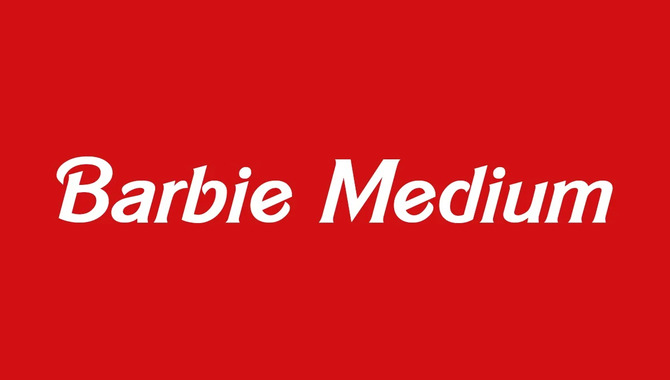
`Barbie has been a household name for over 60 years, and it’s no surprise that the brand’s signature font has evolved along with its image. The Barbie font has become an iconic symbol of the brand, representing glamour, fashion, and feminine style.
Today, the Barbie font features a sleek, modern design reflecting the doll’s legacy and continuing relevance in popular culture. This evolution of Barbie’s typography is a testament to how visual representation can adapt to changing times while retaining its core identity.
Here we will take you on a journey through the evolution of the Barbie font from its early days of bubble letters to the bold design it is today. We’ll explore the history of some of the most popular Barbie fonts, like Dollie Script and Brush Script, and how they have changed over time. Join us as we explore all things related to Barbie font – its history, popularity, use cases, and more.
The Early Days Of Barbie Font Design
As Barbie rose to prominence in the toy industry, her font became essential to her brand image. The original Barbie logo featured whimsical bubble letters that mirrored the doll’s playful nature. Over time, as the brand evolved, so did the font.
In the 1980s and 1990s, the font became bolder and more streamlined to reflect changing fashion and design trends. Today, the Barbie font is sleek and modern, reflecting the doll’s legacy and continuing relevance in popular culture.
The Original Barbie Font
The original Barbie font, created by graphic designer Mary Lewis in 1959, reflected the playful spirit of the Barbie doll. The whimsical bubble letters were distinctive and conveyed a sense of joy and excitement.
As the brand evolved, so did the font, eventually becoming bolder and more modern to reflect changing design trends and fashions. Today, while it has undergone numerous changes, the Barbie font remains a recognizable symbol of one of the most iconic dolls in history.
The Evolution Of Barbie’s Signature Color
Barbie’s signature color has come a long way since the brand’s early days. As the popularity of Barbie grew, so did her signature shade of pink. The evolution of the Barbie font also played an essential role in keeping the brand relevant and appealing to new generations of fans.
Today, the sleek and modern Barbie font design reflects the brand’s commitment to inclusivity and diversity, embodying what Barbie has always stood for – limitless possibilities for girls everywhere.
Dollie Script And Brush Script
In 1959, Barbie’s logo featured the feminine cursive font of Dollie Script. The bubbly and bold Brush Script was introduced in the 1960s as the iconic doll gained popularity. Both fonts established Barbie’s playful identity and reflected their time’s cultural trends.
Their evolution over the years demonstrated how design styles evolve with changing times. Today, Barbie’s modern sans-serif font reflects current design trends and keeps her relevant to new generations of fans.
Tips For Using The Barbie Font In Design Projects
For decades, the Barbie font has been an iconic and instantly recognizable typeface associated with the beloved doll brand. The font features a playful, cursive style with exaggerated loops and curves, giving it a distinctly feminine and whimsical feel. The Barbie font is an excellent choice if you want to add nostalgia and retro flair to your design projects. Here are some tips for using the Barbie font effectively:
- Use it sparingly. While the Barbie font can be fun and eye-catching, using it too much can quickly become overwhelming and tacky.
- Pair it with other fonts. The Barbie font works best when paired with other complementary fonts that balance out its boldness.
- Consider the context. The Barbie font may not be appropriate for all design projects, so consider the tone and purpose of your project before incorporating it.
- Experiment with color. The Barbie font pops most when used in bright, bold colors that evoke the playful spirit of the toy brand.
With these tips, you can make the most of the Barbie font in your design projects and create something unique and memorable.
The Modern Barbie Font Style
Barbie’s modern font style is a bold, all-caps sans-serif with rounded edges that reflects the brand’s commitment to empowering women and promoting inclusivity. This font was introduced in 2009 as part of a rebranding effort to update Barbie’s image and stay relevant in today’s market.
The new font has been used on various Barbie products, including packaging and advertising campaigns, and successfully conveys confidence and playfulness. Additionally, its timeless design ensures that it will continue to be recognized as an iconic element of the Barbie brand for years.
Barbie Medium
The current font style used for Barbie branding is Barbie Medium. It was introduced in 2009 to rebrand and update Barbie’s image. The bold, modern sans-serif typeface with clean lines reflects contemporary ideals of beauty and empowerment. Since then, it has become an iconic symbol of the brand’s evolution, conveying confidence, inclusivity, and relevance to a broader audience.
Southern Aire
The Southern Aire font is a modern take on the classic Barbie font. Its bold sans-serif design gives it a contemporary feel while retaining the playful nature of the original font.
The versatility of Southern Aire makes it ideal for various branding and marketing materials, and its sophisticated look exudes confidence and elegance. This updated version pays homage to the iconic Barbie brand while reflecting changing times.
Alternatives To The Barbie Font
When it comes to creating designs that capture the playful spirit of Barbie, there are plenty of alternative fonts and design elements you can experiment with. Consider using a modern, bold font that nods to the original Barbie font while giving your design a fresh update.
Hand-drawn or custom lettering is another excellent option for adding a personalized touch to your designs. Additionally, incorporating graphic elements and experimenting with different colors can help create a unique and eye-catching design. With so many options available, the possibilities are endless!
Barthofern Vintage Script Logo Font
The Barthofern Vintage Script Logo Font is an excellent alternative for those who want to add a touch of sophistication and elegance to their design while still capturing the playful spirit of Barbie.
This vintage script-style font is easy to read and versatile enough to be used in various design applications such as logos, posters, and invitations. It comes in different weights that make it perfect for designing and is compatible with most graphic design software programs.
Amora Script
Amora Script is a modern and elegant alternative to the classic Barbie font. With its flowing curves and loops, Amora Script evokes a sense of femininity and sophistication that perfectly captures the playful spirit of Barbie. You can use this versatile font for various design projects, including invitations and logos.
Additionally, Amora Script comes in regular and bold versions, making it easy to create eye-catching designs that stand out. When choosing an alternative to the Barbie font, readability, style, and overall aesthetic are crucial factors that Amora Script excels.
Moyshir Ate Vintage Script
Moyshire Vintage Script is an excellent alternative to the classic Barbie font. It has a hand-drawn feel that can add an elegant and sophisticated touch to any design.
This vintage script font works well for branding, marketing materials, invitations, and greeting cards due to its uppercase and lowercase letters, ligatures, swashes, and alternate characters. It’s also versatile enough to suit different design needs while providing a sense of uniqueness and customization.
Famous Use Cases For The Barbie Font
The Barbie font has become famous for branding and marketing, especially in the fashion industry. Its bold and playful design makes it ideal for clothing and accessories targeting young girls. People commonly use the font in invitations and greeting cards, which adds a touch of whimsy to these occasions.
Additionally, the font’s unique style has been utilized in movies and TV shows aimed at children and young adults. Contributing to its enduring popularity.
Future Trends And Innovations In Typography Design Inspired By The Barbie Font
The Barbie font has been a classic since its introduction in the 1990s. And it continues to inspire future trends and innovations in typography design. Its playful and feminine style has influenced many designers to experiment with bold, sans-serif fonts that evoke a sense of fun and whimsy.
Some current trends include using bright colors, geometric shapes, and unconventional layouts to create eye-catching and memorable designs.
Additionally, designers can incorporate more intricate details and textures into typography designs due to technological advancements. Leading to even more creative possibilities as the Barbie font continues to stand the test of time. It will undoubtedly continue to inspire new generations of designers to push the boundaries of typography design.
The Barbie font has come a long way since its early days, and it continues to evolve with the changing times. From the original bubble letters to today’s bold and modern designs, the Barbie font has remained an iconic symbol of femininity and empowerment.
Whether designing a logo or creating promotional materials for your brand, incorporating the Barbie font is an excellent way to capture attention and make a statement.
Whether you’re a fan of the classic ’90s bubble letters or prefer the sleeker modern design, there’s no denying that the Barbie font continues to captivate audiences worldwide. So, next time you see that iconic pink font, take a moment to appreciate its journey and impact on popular culture.
1.What Font Is The Barbie Font?
Ans: The brand created the unique script font, Barbie font, specifically for their use. It features bold, flowing letters with a subtle slant and has undergone several redesigns over the years. The current version of the Barbie font is a modern take on the classic script design. Giving it a fresh and updated look while maintaining its iconic style.
2.How Do You Get The Barbie Font?
Ans: The Barbie font is trademarked and cannot be downloaded for free. If you wish to use the official Barbie font, you must purchase a license from Mattel, the registered owner, or a licensed font distributor.
While some websites offer similar fonts resembling the Barbie font. They are not official and may not be legally allowed for commercial use.
3.What Is The Font In The Barbie Poster?
Ans: The font used in the Barbie poster is a custom-designed font known as “Barbie Font.” It has a playful, cursive style with bold curves and loops. Over the years, the font has evolved from bubble letters in the 1960s to a more sophisticated design today. The Barbie Font is an integral part of the Barbie brand identity and is instantly recognizable.
4.Does Cricut Design Space Have A Barbie Font?
Ans: Yes, Cricut Design Space does have a Barbie font called “Barbie Medium Italic.” This font can be found in the Cricut Access Library and features the classic Barbie logo in a cursive, italicized script.
If you are working on crafting projects related to Barbie or want to add a touch of nostalgia to your designs, this font is the perfect choice.
5.What Type Of Barbie Font Is It?
Ans: The current Barbie font is a bold, sans-serif typeface introduced in 2009 and is known as the “Barbie Bold” font. The font has evolved over the years, from its original bubble letters in the 1950s to a more stylized script in the 1980s.